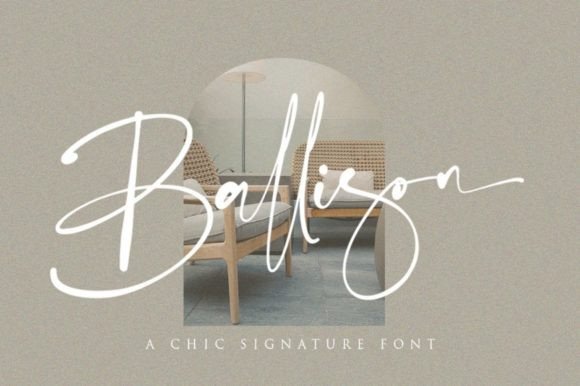
Step into the realm of refined elegance with Ballison, the enchanting script font that weaves a spell of visual delight. Inspired by the allure of handwritten beauty, Ballison gracefully dances across your designs, leaving a trail of elegance and sophistication in its wake.
With its organic flow and natural charm, Ballison effortlessly captures the essence of timeless artistry, making it the perfect choice for projects that yearn for an authentic and heartfelt touch. Its delicate curves and playful strokes mimic the fluidity of ink on paper, evoking a sense of intimacy and warmth that draws viewers in.
Unleash your creativity and let Ballison work its magic on your logos, logotypes, and branding projects. Its versatility knows no bounds, effortlessly adapting to a multitude of styles, from classic and traditional to modern and contemporary. Whether you're crafting a sophisticated wedding invitation, designing a fashion-forward magazine spread, or creating eye-catching book covers, Ballison seamlessly blends in, adding a touch of understated luxury.
Transport your Instagram feed to a new realm of visual enchantment with Ballison. Its inherent grace and charm will elevate your posts, stories, and reels, making them stand out from the crowd. Let Ballison be your secret weapon to capture the attention of your audience, leaving them captivated by your unique style and impeccable taste.